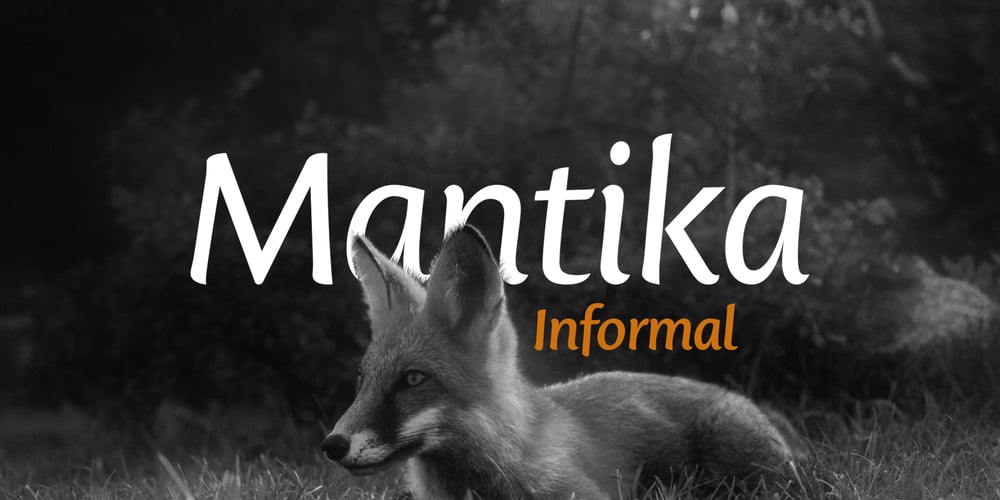
Mantika Informal
Mantika Informal font
Mantika Informal Font Family was designed by Jürgen Weltin and published by Linotype. Mantika Informal contains 2 styles and family package options. Jürgen Weltin’s Mantika Informal is pretty difficult to categorize, but very easy to like. This particularly reader-friendly typeface in regular and bold weights, brings to the table the informal fluidity of a script, the consistency of an inclined italic, and the open and airy forms and contrast of a humanist sans. The result is a warm, approachable, and very legible typeface that is never static and staid, but rather invites an attentive, reading eye.The original idea behind Mantika Informal lay in the challenge to create a typeface for setting children’s books. German designer Jürgen Weltin aimed to create a reading typeface for those just starting to learn how to read. On the one hand, it should help create clear word-images; on the other, its letterforms should remain uncomplicated but resist mechanical and industrial sterility. Mantika?s subtle cursive lines stress the printed word’s connection with handwriting, in addition to making the transition from school writing exercises to printed texts seamless and effortless. The resulting slightly organic and cursive forms that developed during the design process are so captivating that Mantika Informal may be used for a multitude of unintended applications – anywhere a friendly and informal yet sophisticated character could lend a helping hand, Mantika is there, giving a fresh accent to anything from packaging design to food products. With a broad character set encompassing support for Cyrillic and Green, Mantika Informal’s two fonts make for a versatile and dynamic typeface that surely will find its place in a broad range of applications.